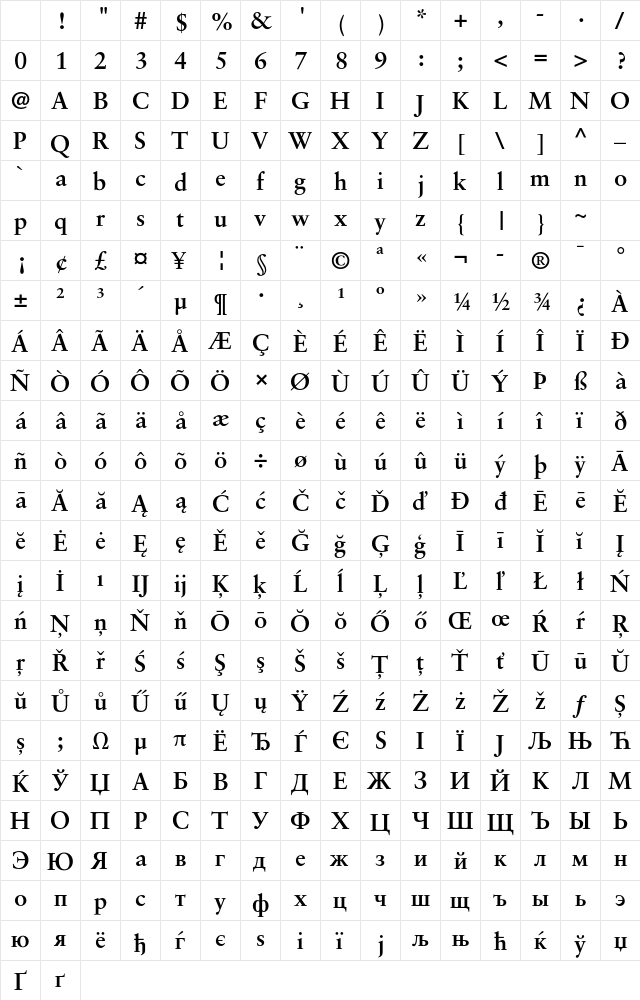
Complete Korinthia Bold glyph index. Displaying only characters natively supported by Korinthia Bold font.
Korinthia is a composed and adaptable typeface that performs quietly and consistently across a wide range of design contexts. Its bold stroke weight gives it real presence on the page.